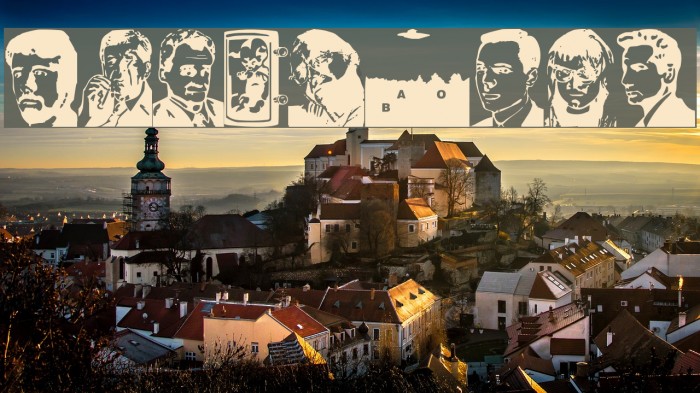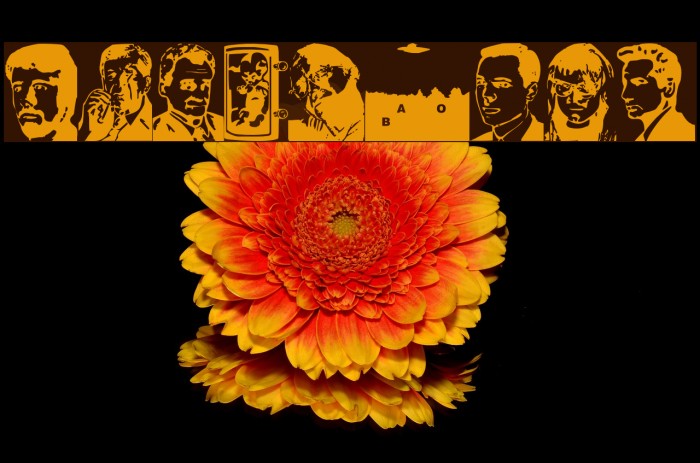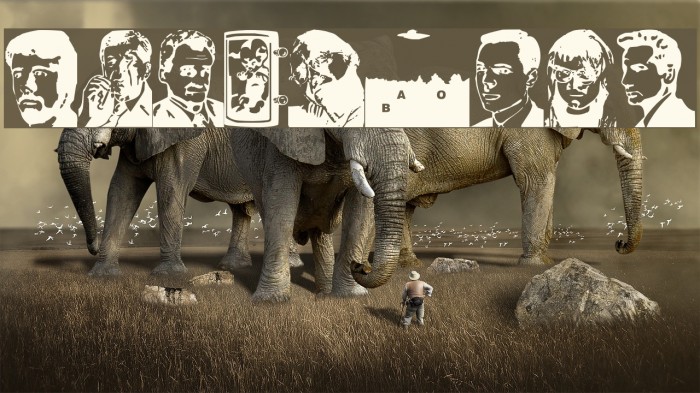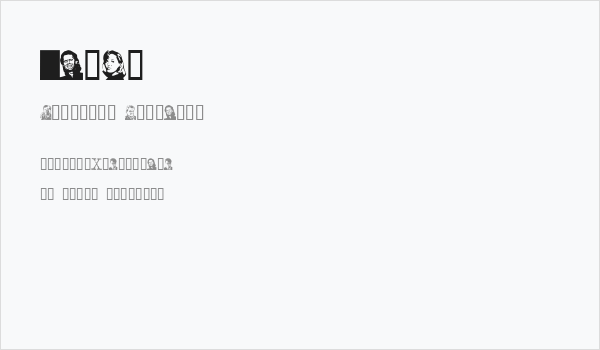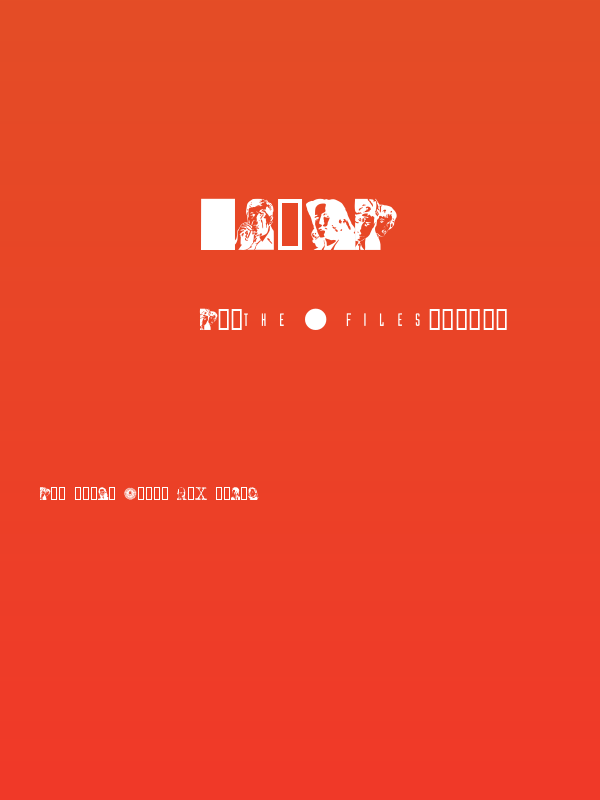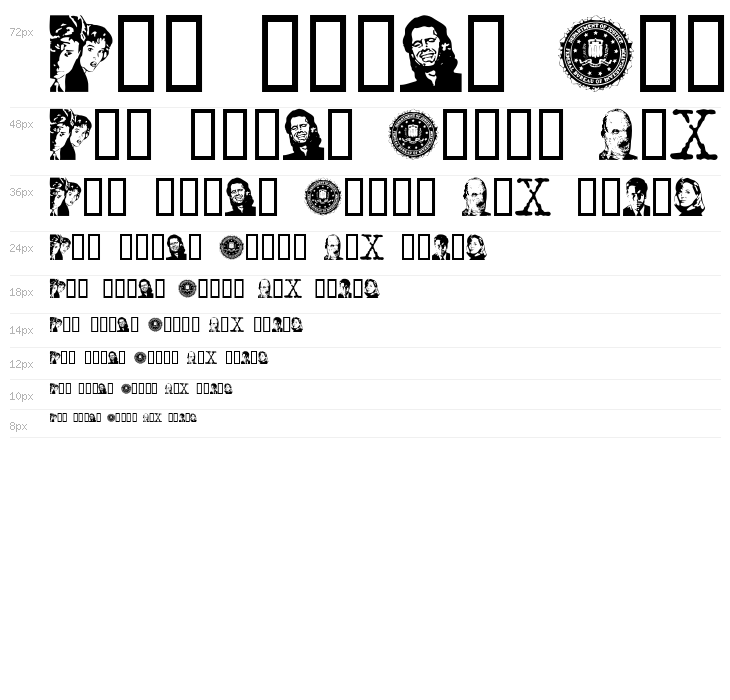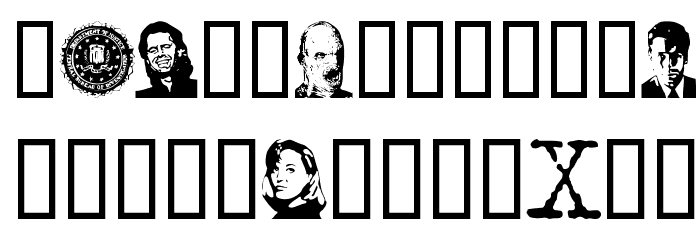
Xcast Font
Xcast Description
This font is a decorative and thematic typeface inspired by a popular science fiction series. It features a unique blend of character silhouettes and iconic imagery from the series, creating a visually striking and thematic design. The letters are interspersed with detailed illustrations of characters and symbols, making it more of an artistic representation than a traditional font. The style is bold and graphic, with a strong emphasis on the visual elements associated with the series. This font is not suitable for body text due to its intricate design but serves as an excellent choice for themed projects.
| Use Case | Logos, Headlines, Themed projects |
| Proposed Projects | Ideal for themed posters, fan art, and creative projects related to the series. |